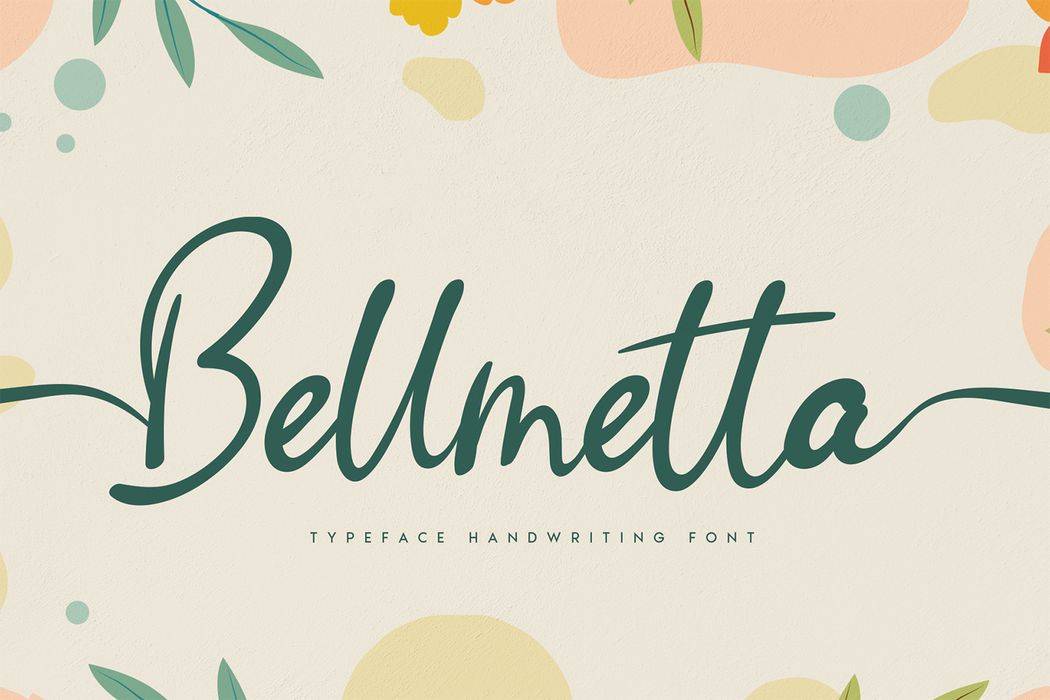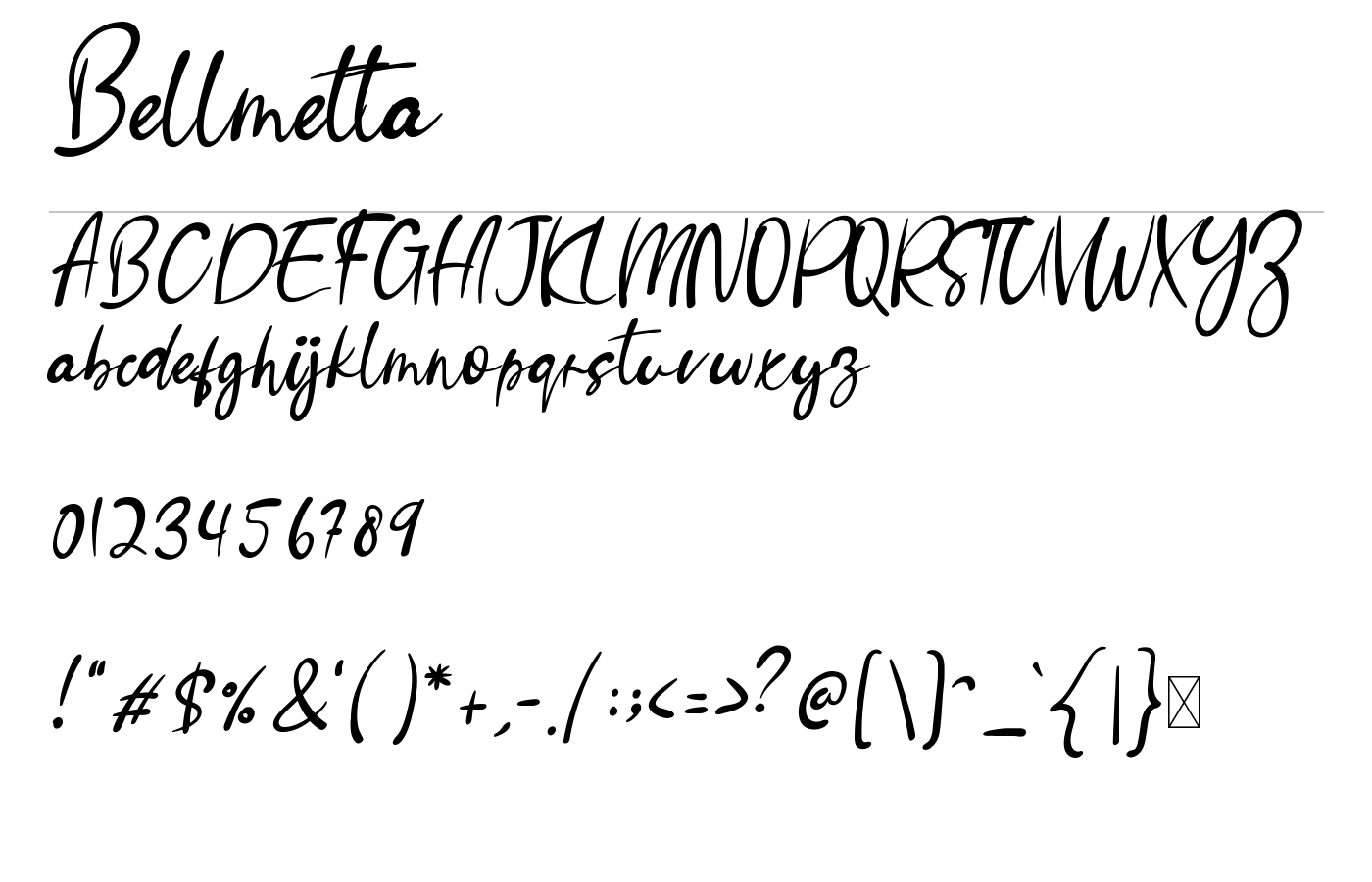
Bellmetta is a lively and elegant script font with a hand-drawn feel, characterized by its smooth, flowing strokes and moderately high contrast. It features tall, slender letterforms with a casual yet refined personality, making it ideal for stylish branding, invitations, and creative editorial work. This font shines when used for headlines, logos, and any design needing a personal, artistic touch that feels both modern and approachable.
Bellmetta Font
About Bellmetta Font